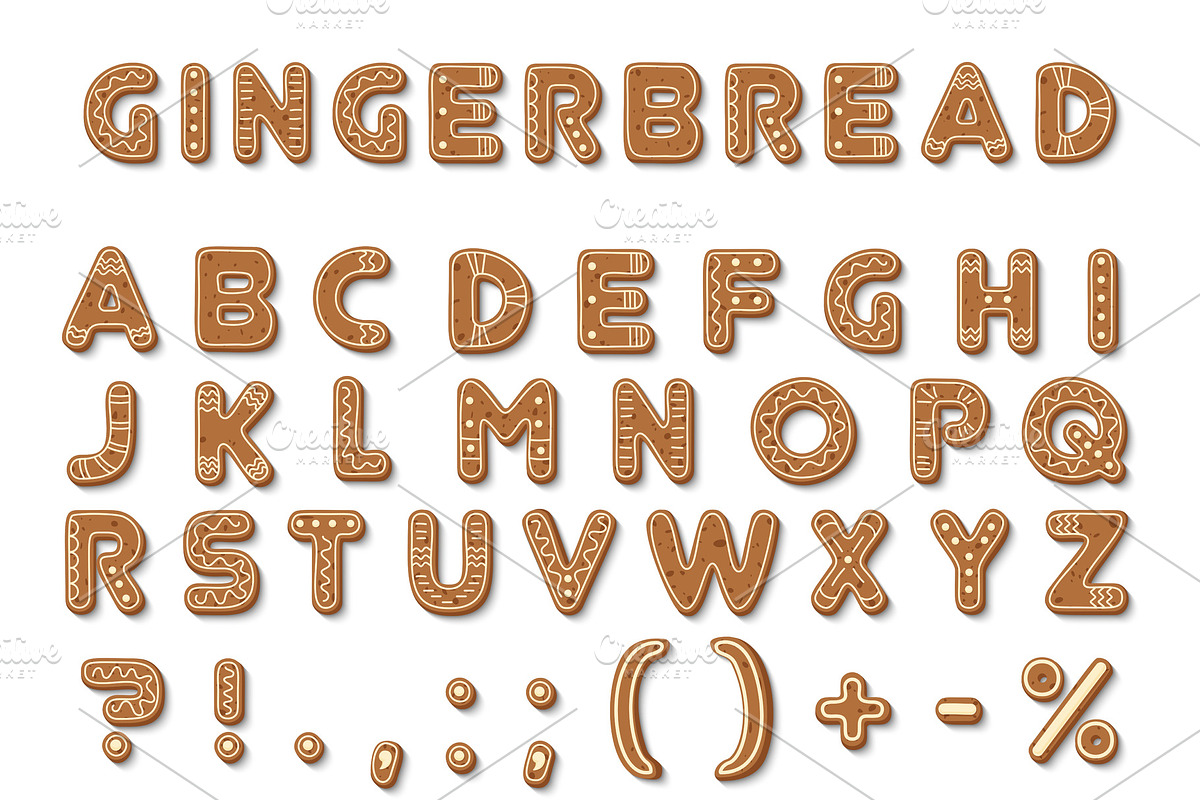
Gingerbread dark brown cookies font
Set of vector gingerbread dark brown cookies tasty delicious shaped english alphabet font letters, icing-sugar covered signs, arabic numbers isolated on white background
Gingerbread dark brown cookies font by Lemberg Vector fits naturally into Branding, posters, packaging, typography.